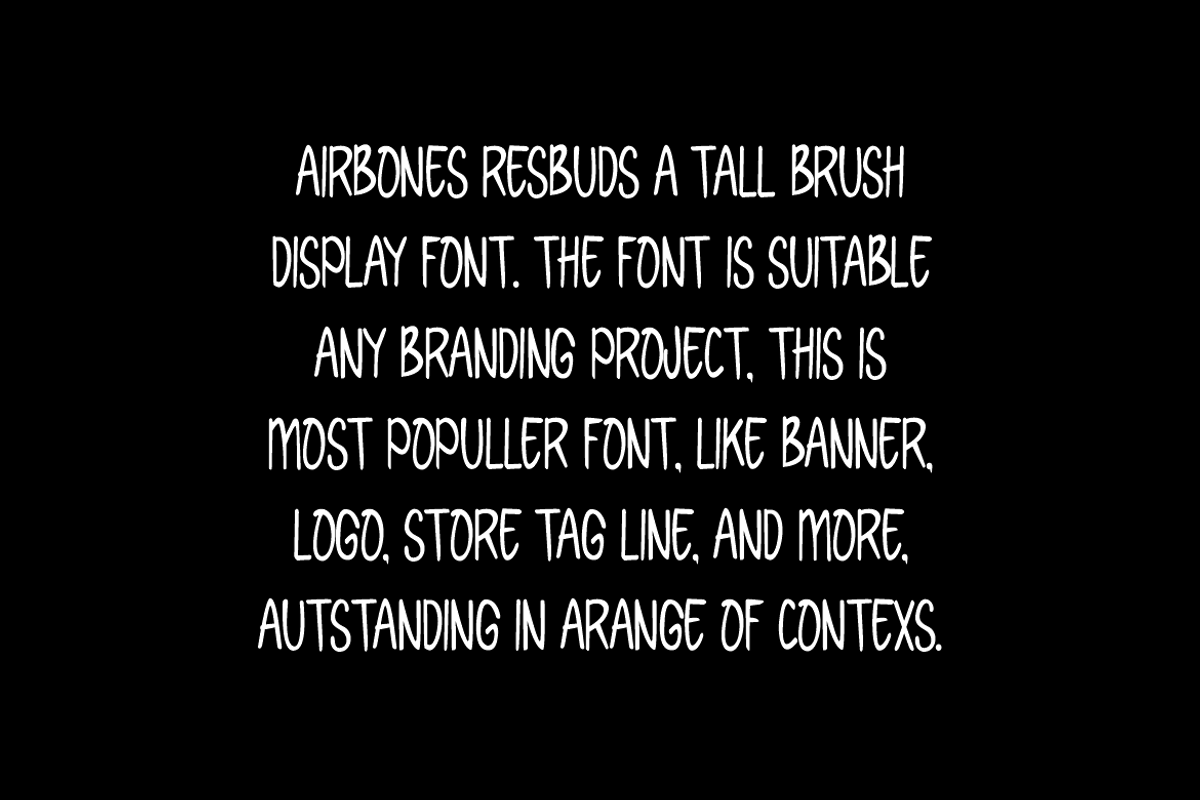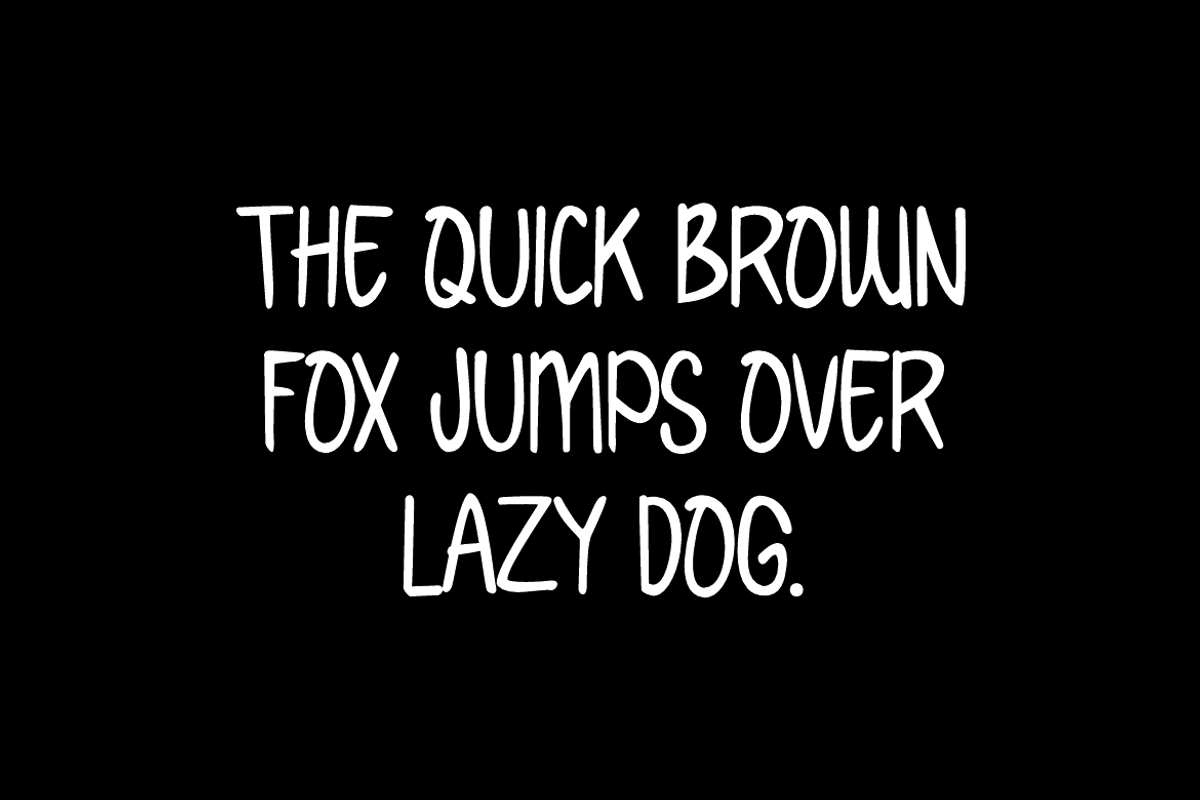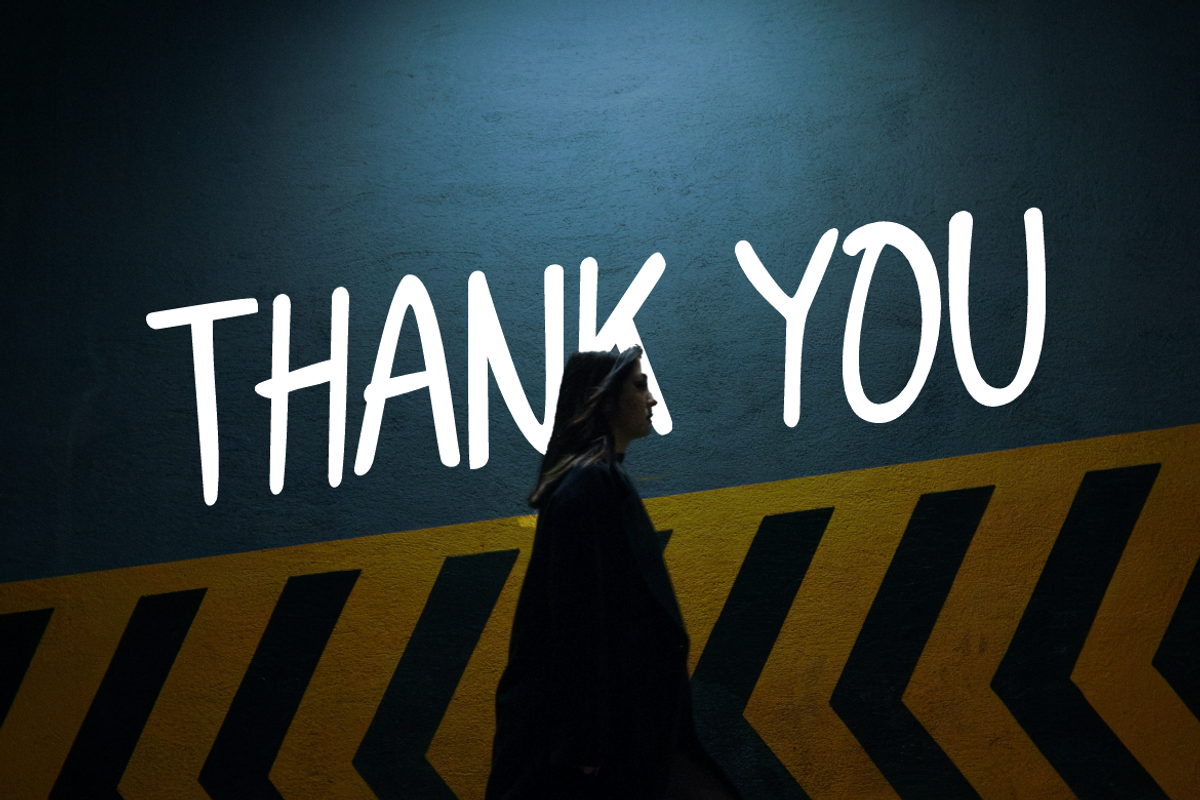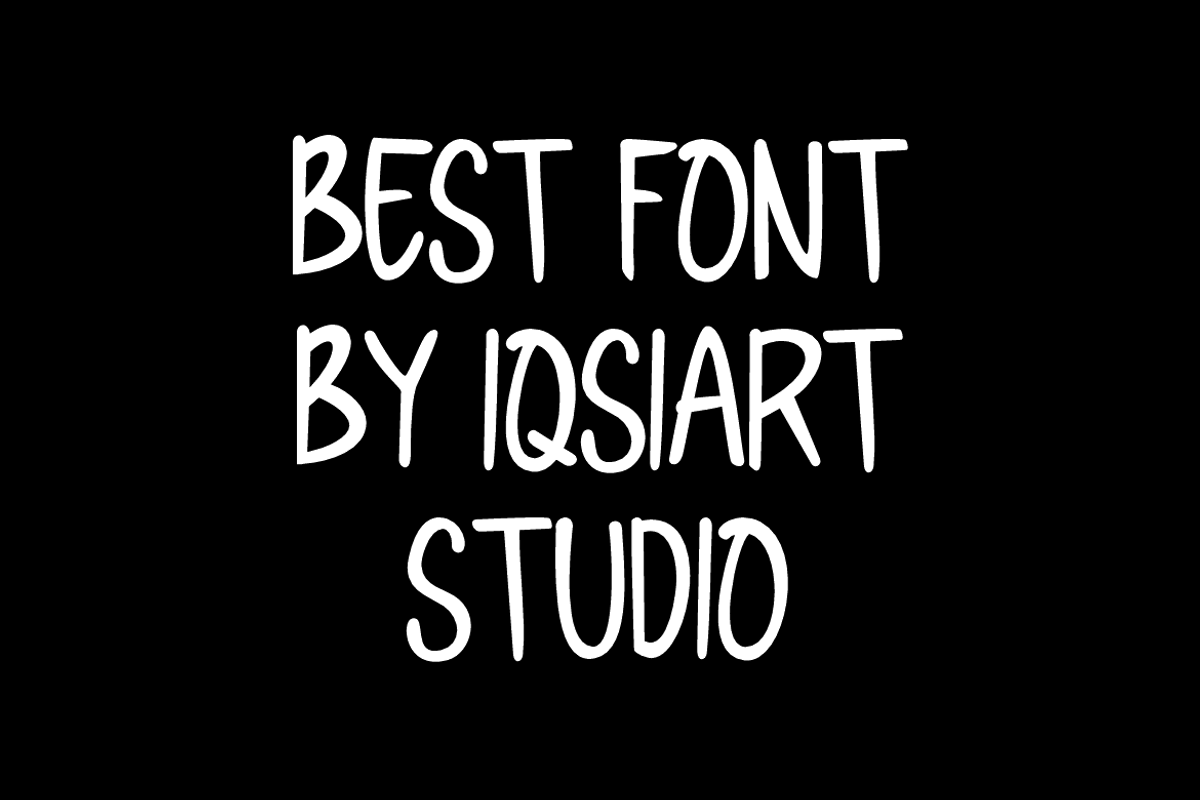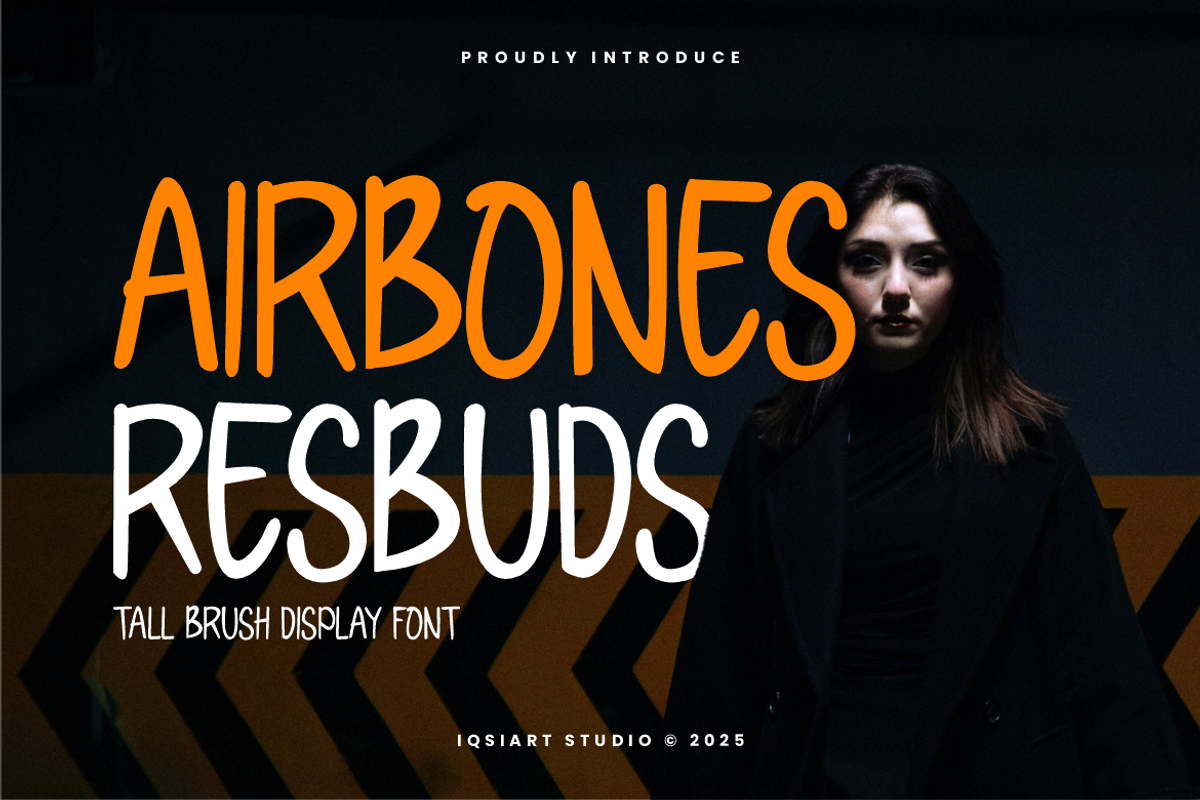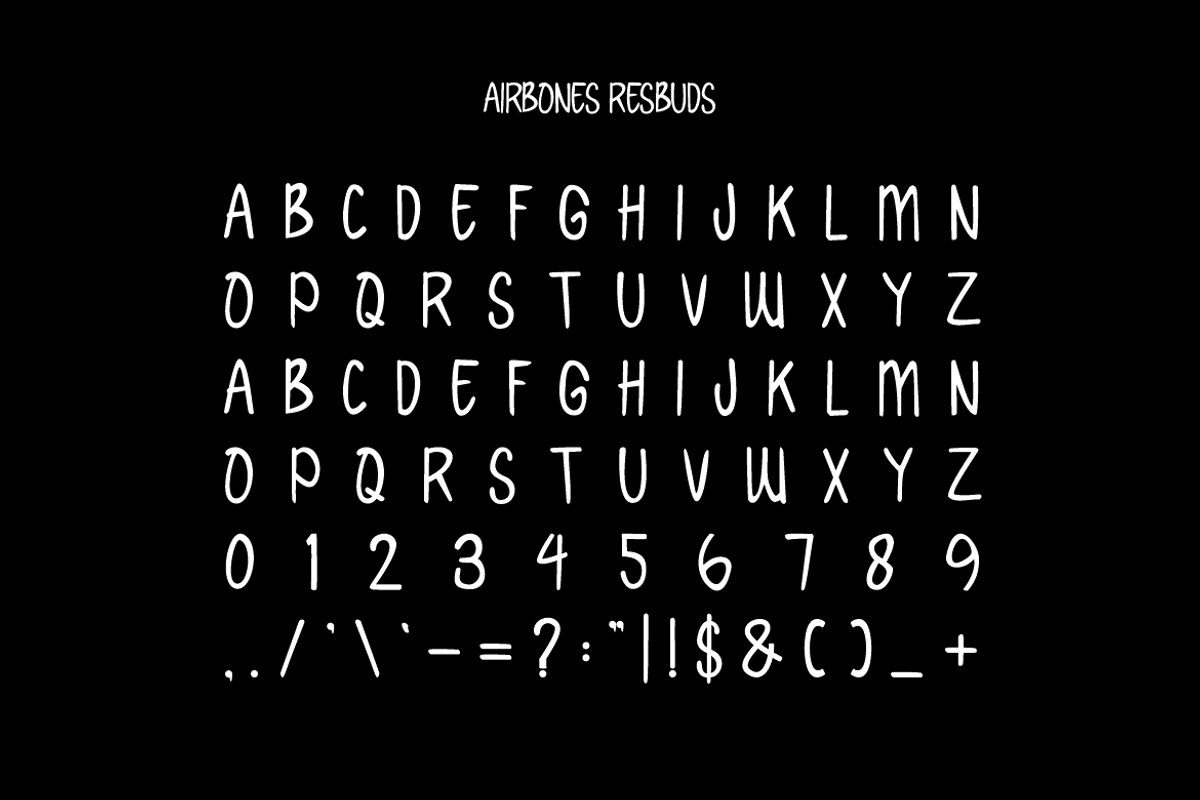
Airbones Resbuds - Tall Font
Airbones Resbuds Font is a best and authentic display font. This font can be used for your various needs. We provide various themes and font styles. visit our profile to get a wide variety of themes and different font styles you need.